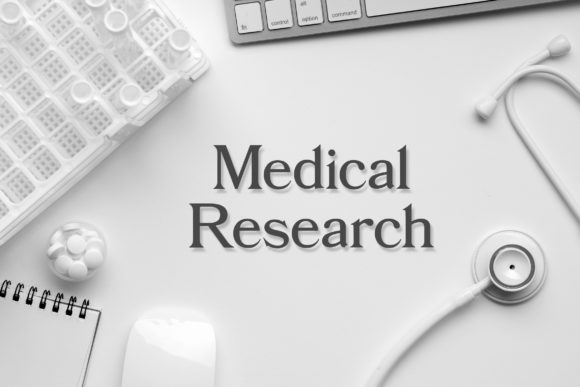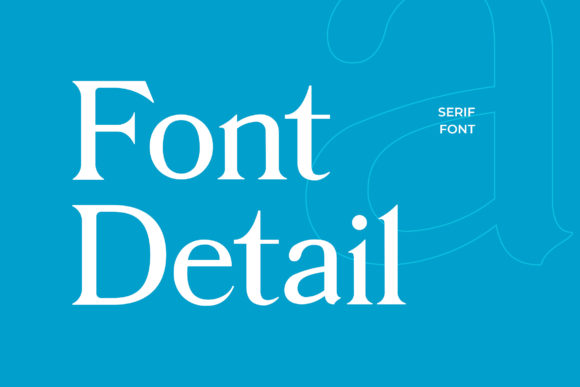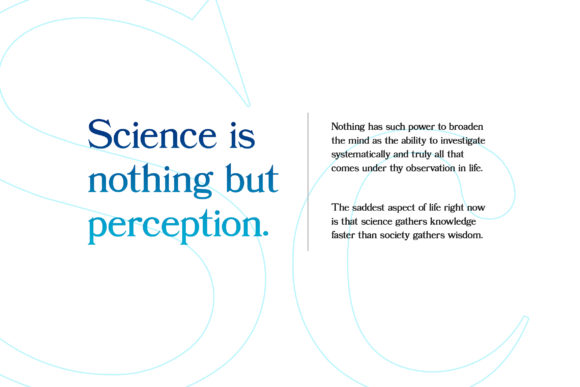
Introduction to Nandia Font
Have you ever stared at a blank canvas, eager to bring your creative vision to life, but struggling to find the perfect design element to tie everything together? We’ve all been there. As designers, we know that the right font can make or break a project, elevating it from bland to grand. That’s where the Nandia Font comes in – a modern, thin, and delicate serif font that’s sure to leave a lasting impression.
With its versatility and high-quality design, the Nandia Font is an invaluable resource for any creative project. Whether you’re working on a logo, brochure, or website, this font is sure to add a touch of sophistication and elegance. And the best part? It’s available for free download, making it an accessible design resource for designers of all levels.
- High-quality design resource with a unique, elegant style perfect for creative projects.
- Designed with a wide range of applications in mind, from branding and marketing to digital products and print materials.
- Perfect for designers seeking a sophisticated and professional font to elevate their creative project.
Honest Review: Nandia Font
I recently stumbled upon the Nandia Font while searching for a high-quality design resource to enhance my creative project. After giving it a try, I’m excited to share my honest review with you.
- ✨ Unique and elegant design that’s perfect for a variety of creative projects
- ✨ Highly legible, even at smaller font sizes
- ✨ Offers a transparent background, making it easy to customize and combine with other design elements
- ⚠️ Limited font styles and weights available (although still plenty to work with)
- ⚠️ May not be suitable for very complex or technical projects due to its elegant, script-like design
Overall, I’m really impressed with the Nandia Font. It’s a high-quality design resource that’s perfect for designers looking for a unique and elegant font to enhance their creative project. While it may have some limitations, I think it’s a great addition to any design library.
Nandia Font
Tips for Getting the Most Out of Nandia Font
To get the most out of Nandia Font, use it on a transparent background to create a clean and modern design. Experiment with different font sizes and styles to add visual interest to your project. You can also pair Nandia Font with other high-quality design resources to create a cohesive and professional design.
Nandia Font is commonly used in business cards, brochures, and other marketing materials. It’s also great for creating eye-catching social media graphics and presentations. With its high-quality design and transparent background, Nandia Font is a versatile and effective design resource for any creative project.